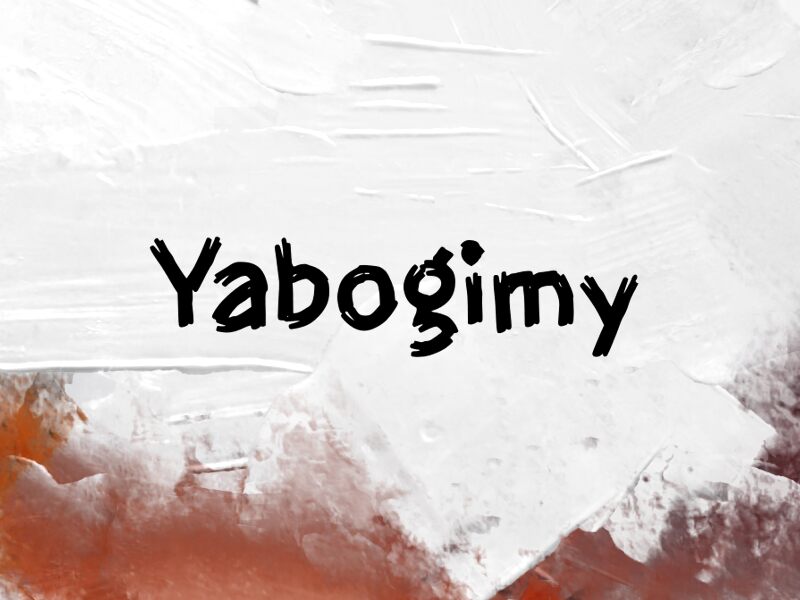
Yabogimy font by wepfont.com is a free vibrant trash typeface for contemporary applications in creative projects. Its lively style is characterized by its spontaneous look and dynamic effect. The font strikes a perfect balance between a modern and casual look. Whether used in short or longer texts, this font is guaranteed to make both the reading and visual experience more enjoyable.
The expressive font is ideal for branding, advertising, social media, posters, headlines, book covers, sports, and gaming. It also fits fashion, textile, music album covers, and any other field requiring dynamic typography.
Yabogimy is a unique free font designed for creative projects. It features distinct letterforms that enhance any design, making it an excellent choice for branding, posters, and digital art. This font allows for playful and dynamic typographic compositions, adding a fresh touch to your work.
With its easy-to-read characters, Yabogimy is perfect for both headlines and body text. You can effortlessly download this font and incorporate it into your next project for a stylish and modern look.